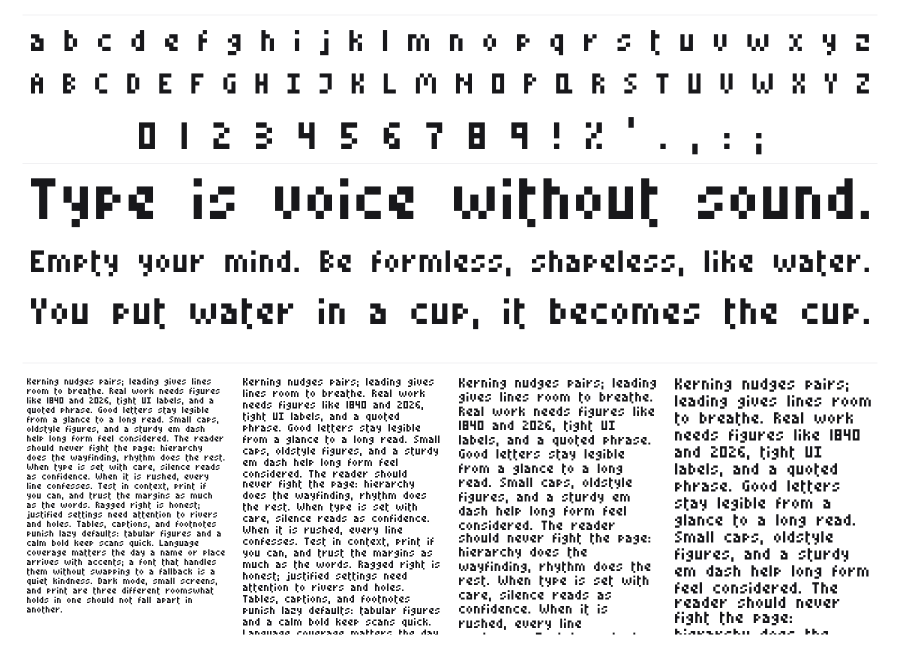
Little Conquest
Little Conquest is a bold bitmap typeface from Brixdee with chunky, blocky letterforms rooted in 8-bit era aesthetics. The pixels are big and unapologetic, giving it the feel of title screens and score displays from early console and arcade games. Best kept to headlines and display use where that retro digital crunch reads as intentional rather than lo-fi.